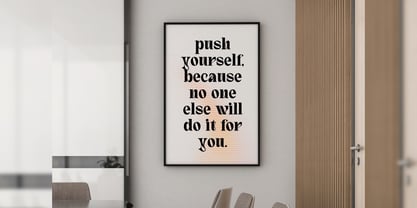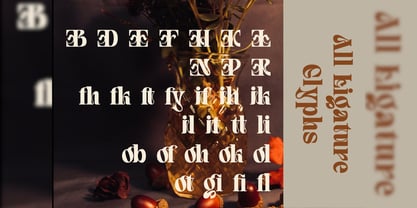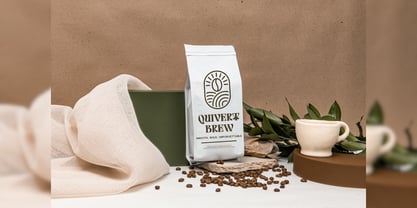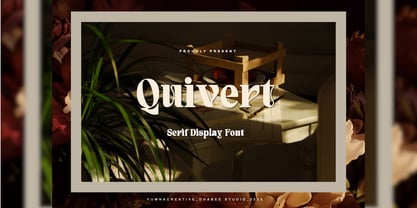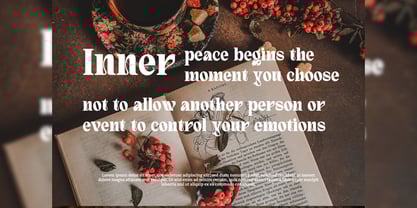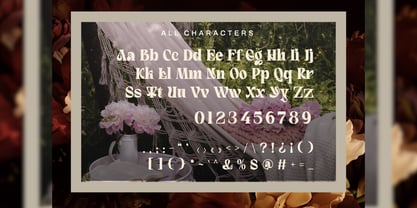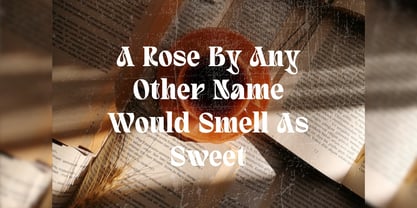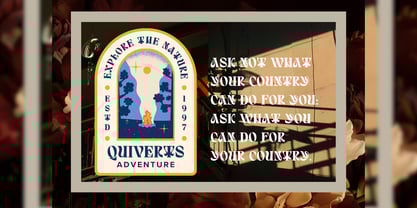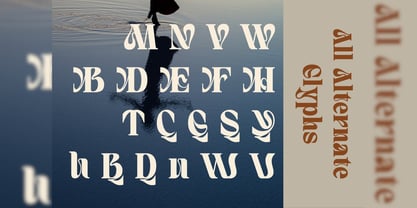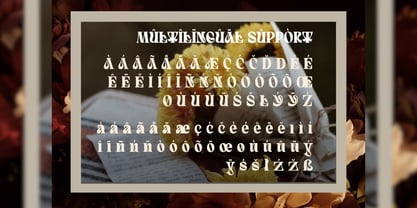
Quivert
The Quivert Font Family was designed by Dhimas Habibie and published by Yumnacreative. Quivert contains 1 styles. More about this family
Introducing Quivert – Serif Display Font
Quivert – Serif Display Font is a Bold vintage style serif font with strong character and soft features. modern and classic serif font with a clear and bold look. It’s a very versatile font that works great in large.
Quivert was built with stylistic Alternate and Ligature makes your project will be awesome! Perfect for editorial projects, Logo design, web font, clothing branding, product packaging, magazine headers, or simply as a stylish text overlay to any background image.
FEATURES
– Uppercase and Lowercase letters
– Numbering and Punctuations
– Multilingual Supports